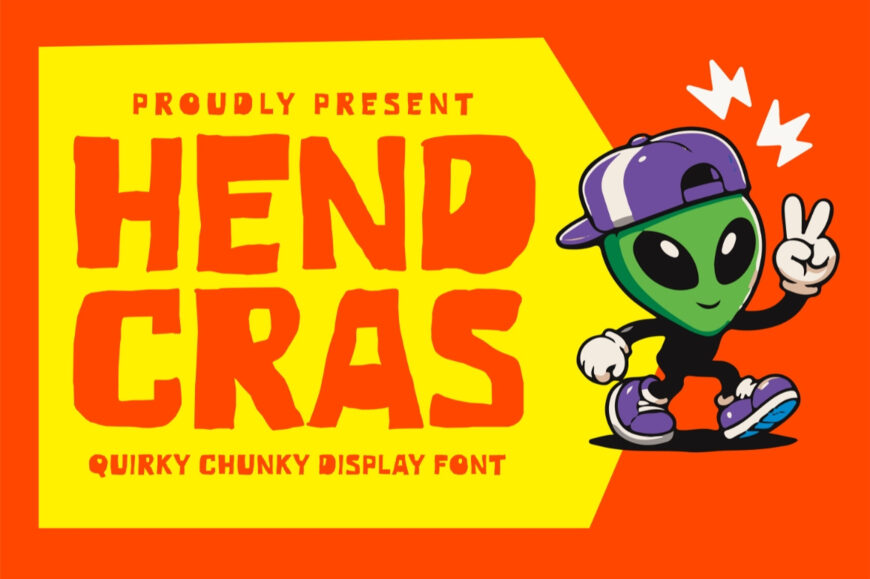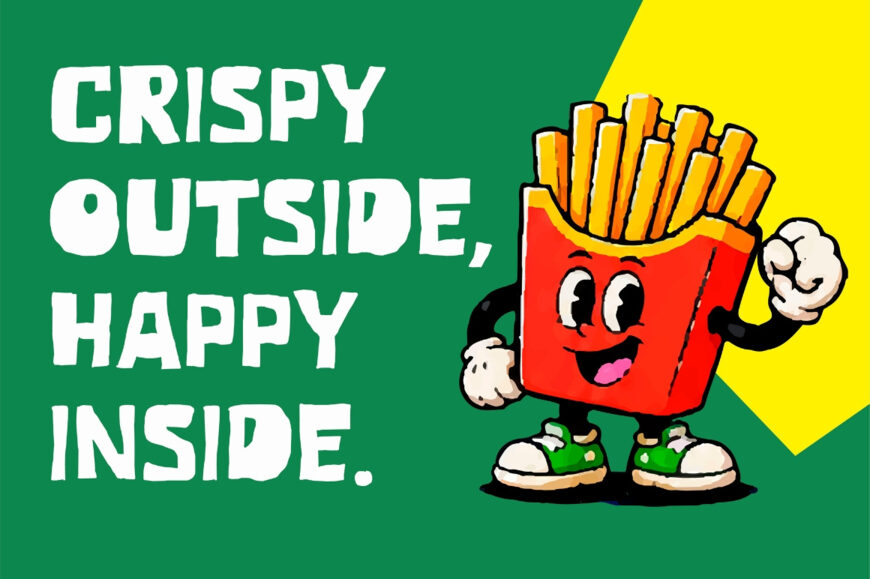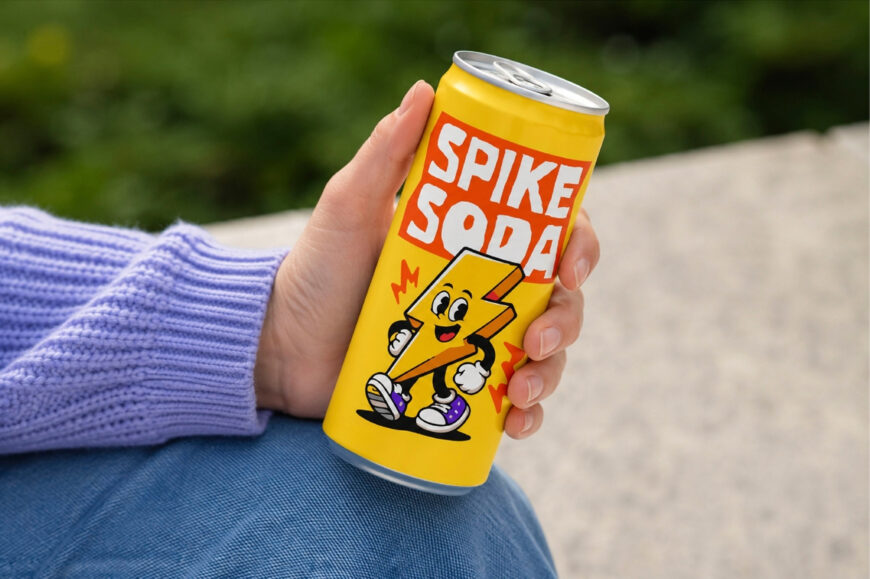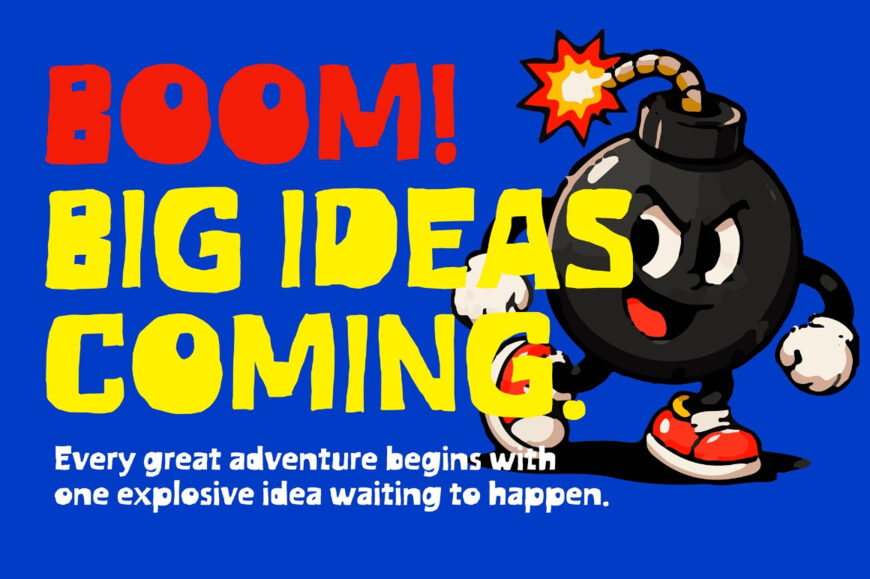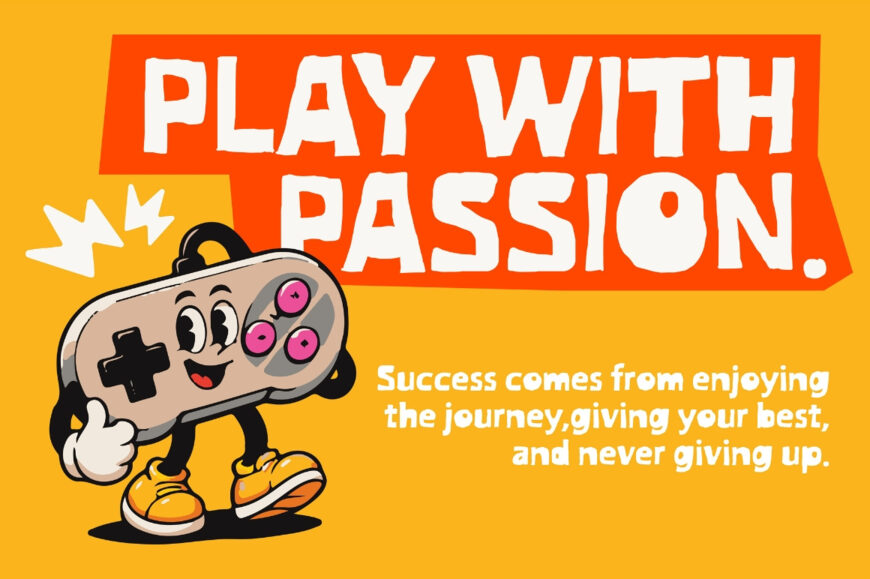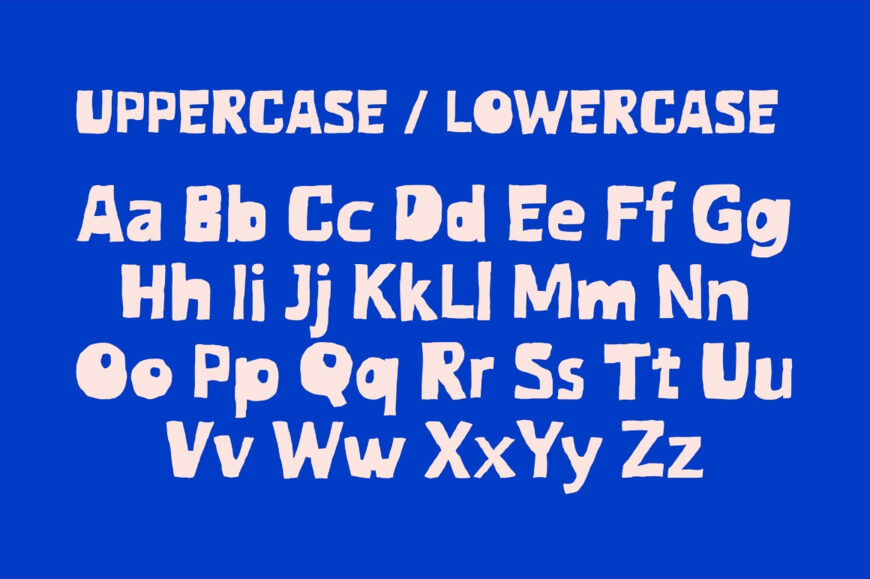
Hend Cras is a quirky chunky display font packed with bold personality and playful energy. Its irregular, hand-drawn letterforms create a fun and carefree look, making it perfect for posters, kids’ designs, packaging, stickers, apparel, branding, and eye-catching headlines.
With its chunky shapes and unique handmade character, Hend Cras brings a cheerful, creative, and slightly rebellious vibe to every design.